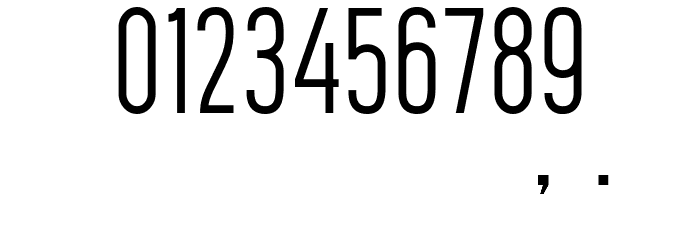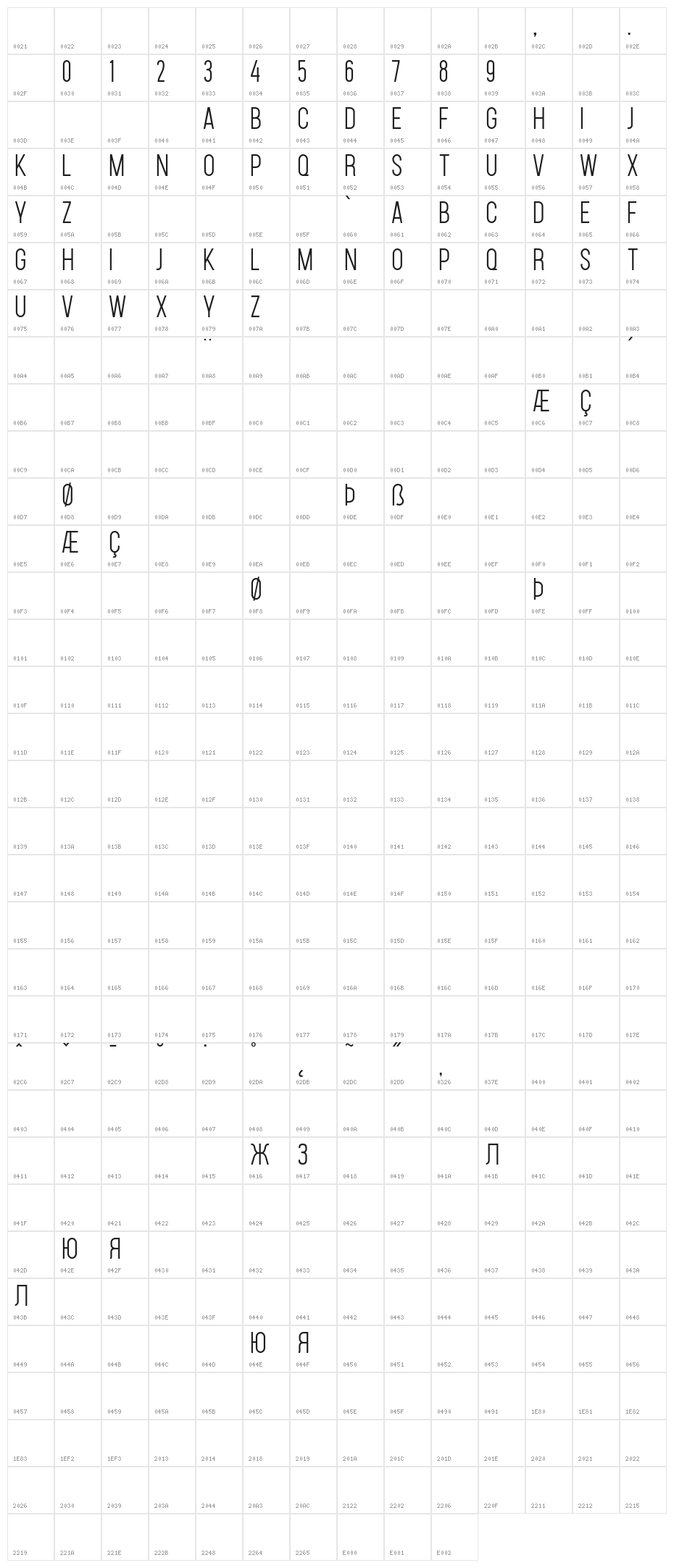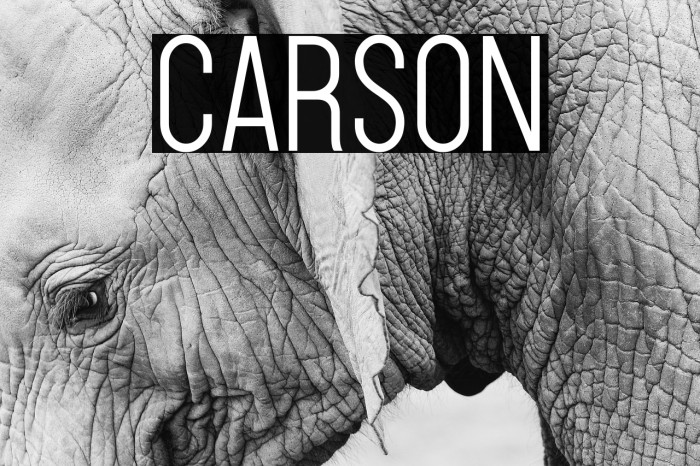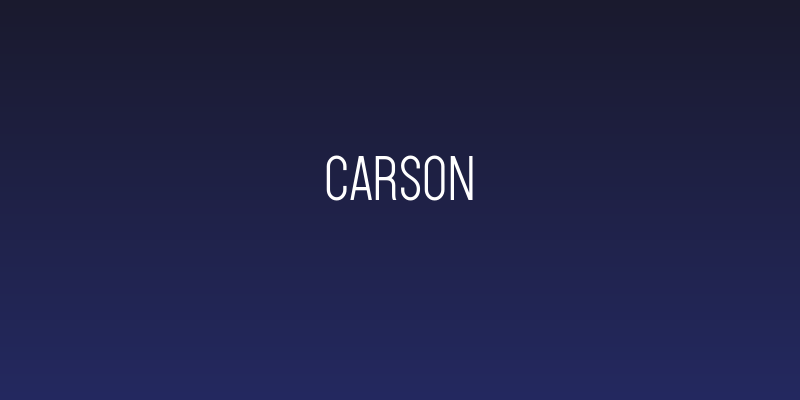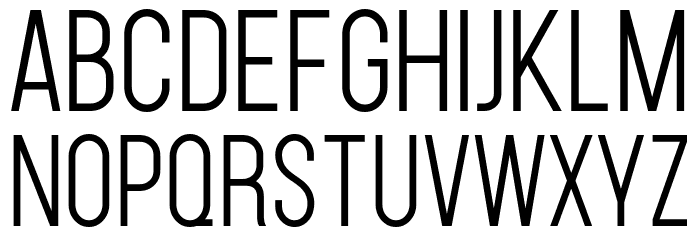
Carson Font
Carson Description
This font features a clean and modern sans-serif style with uniform stroke widths, giving it a sleek and contemporary appearance. The characters are tall and narrow, contributing to a condensed look that is both stylish and functional. The uppercase and lowercase letters maintain a consistent design, ensuring readability and versatility. The numerals are clear and straightforward, matching the overall aesthetic of the font. This typeface is ideal for projects that require a modern and professional touch, such as branding, advertising, and editorial design.